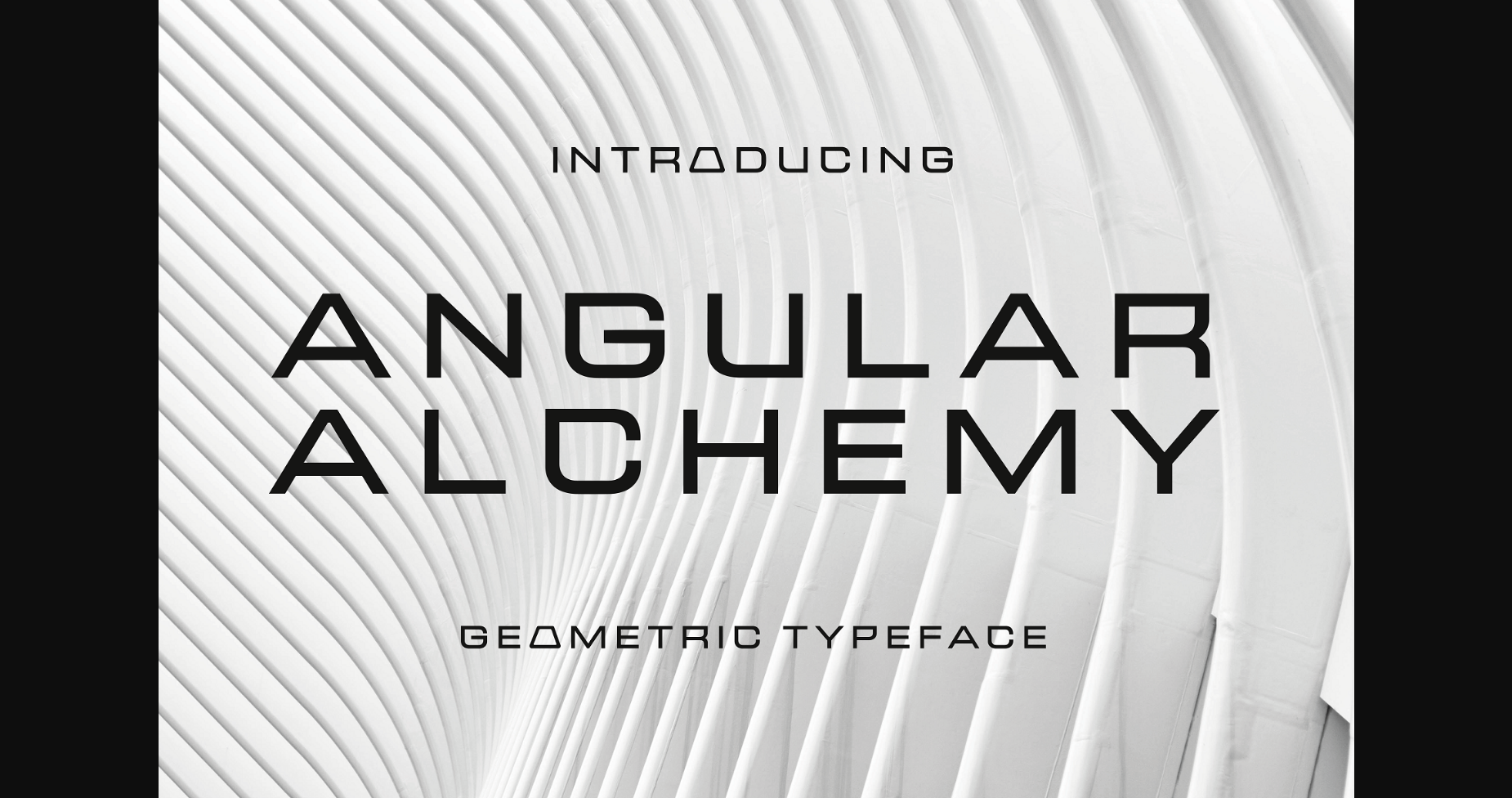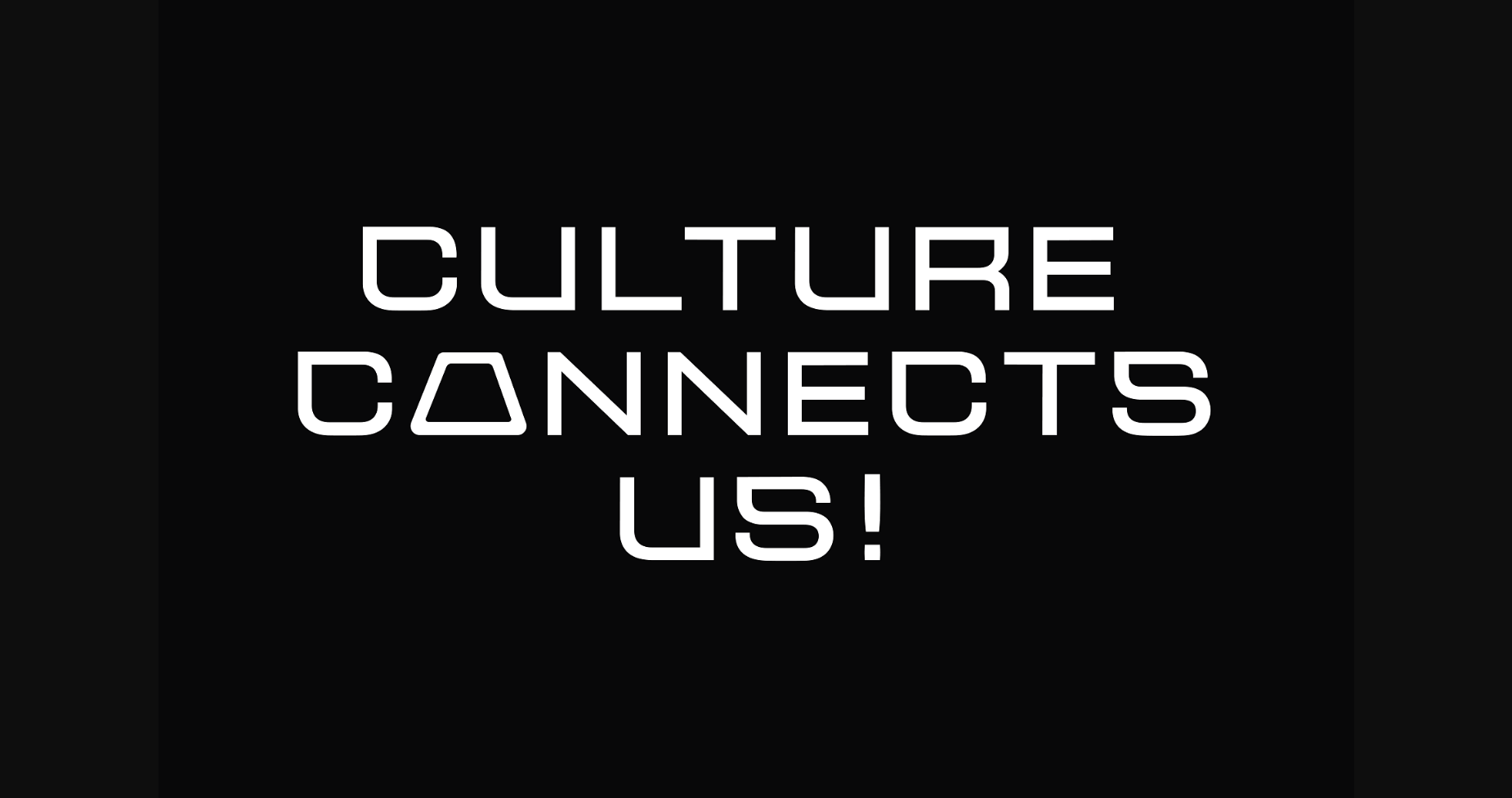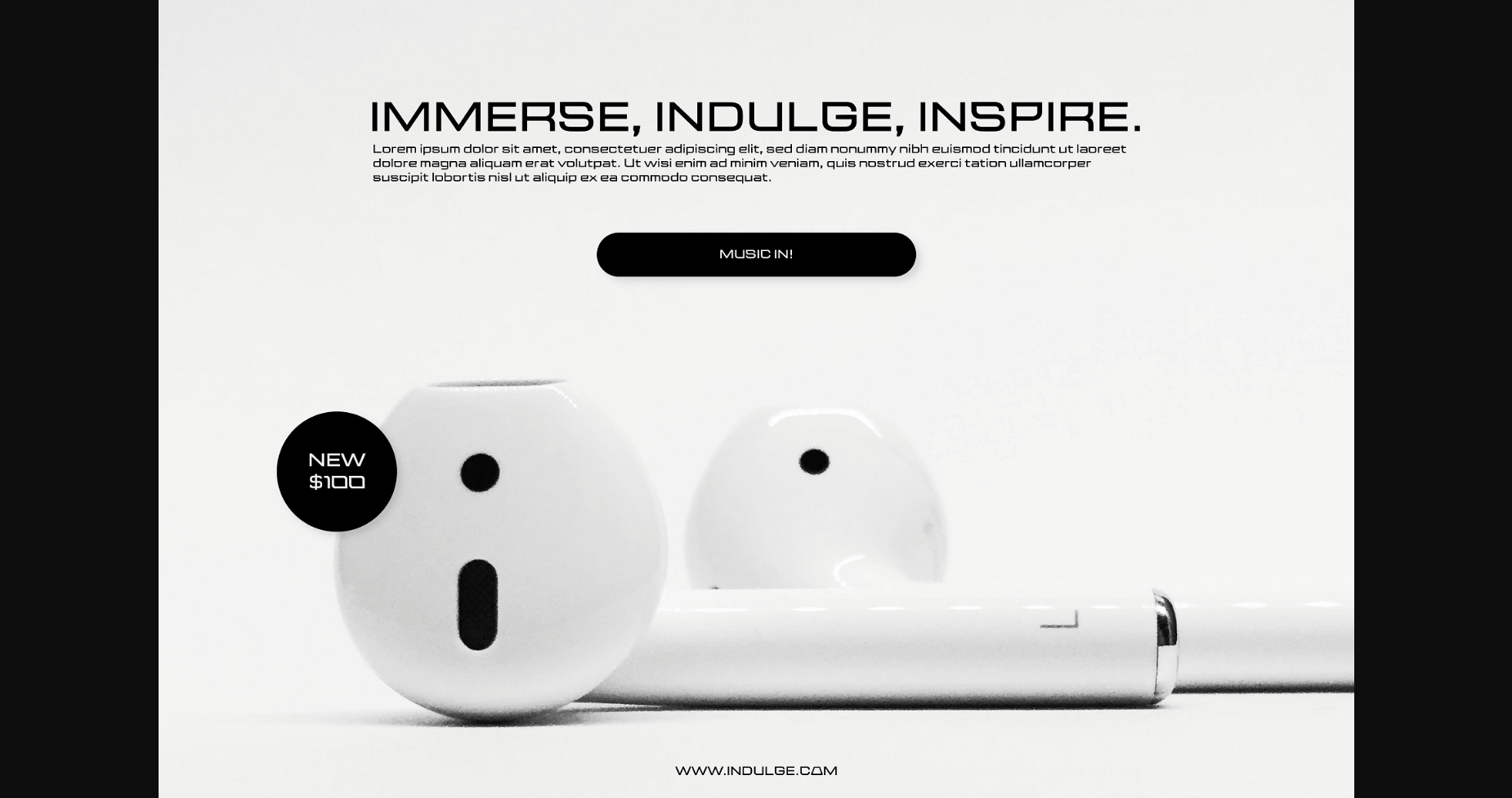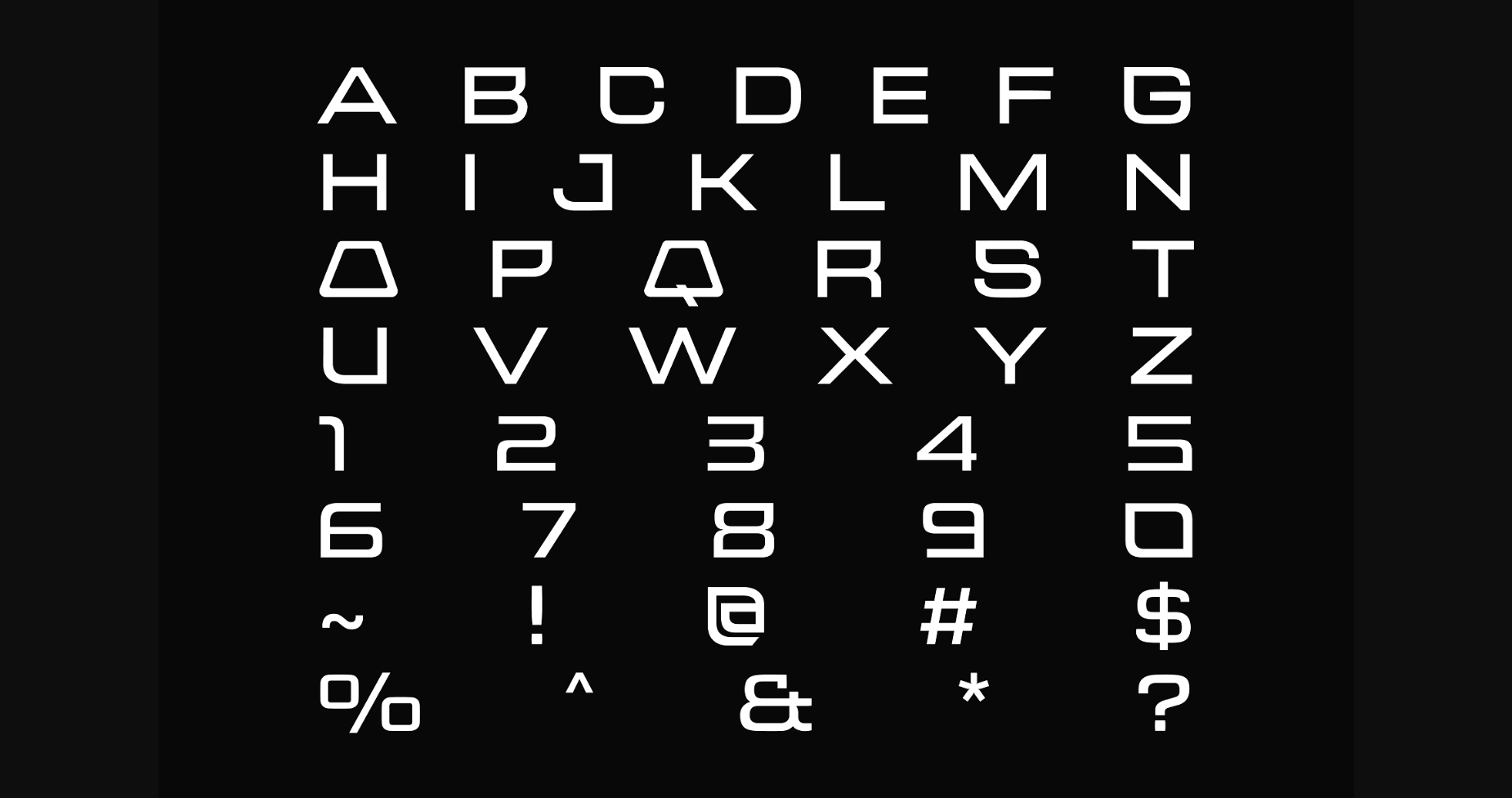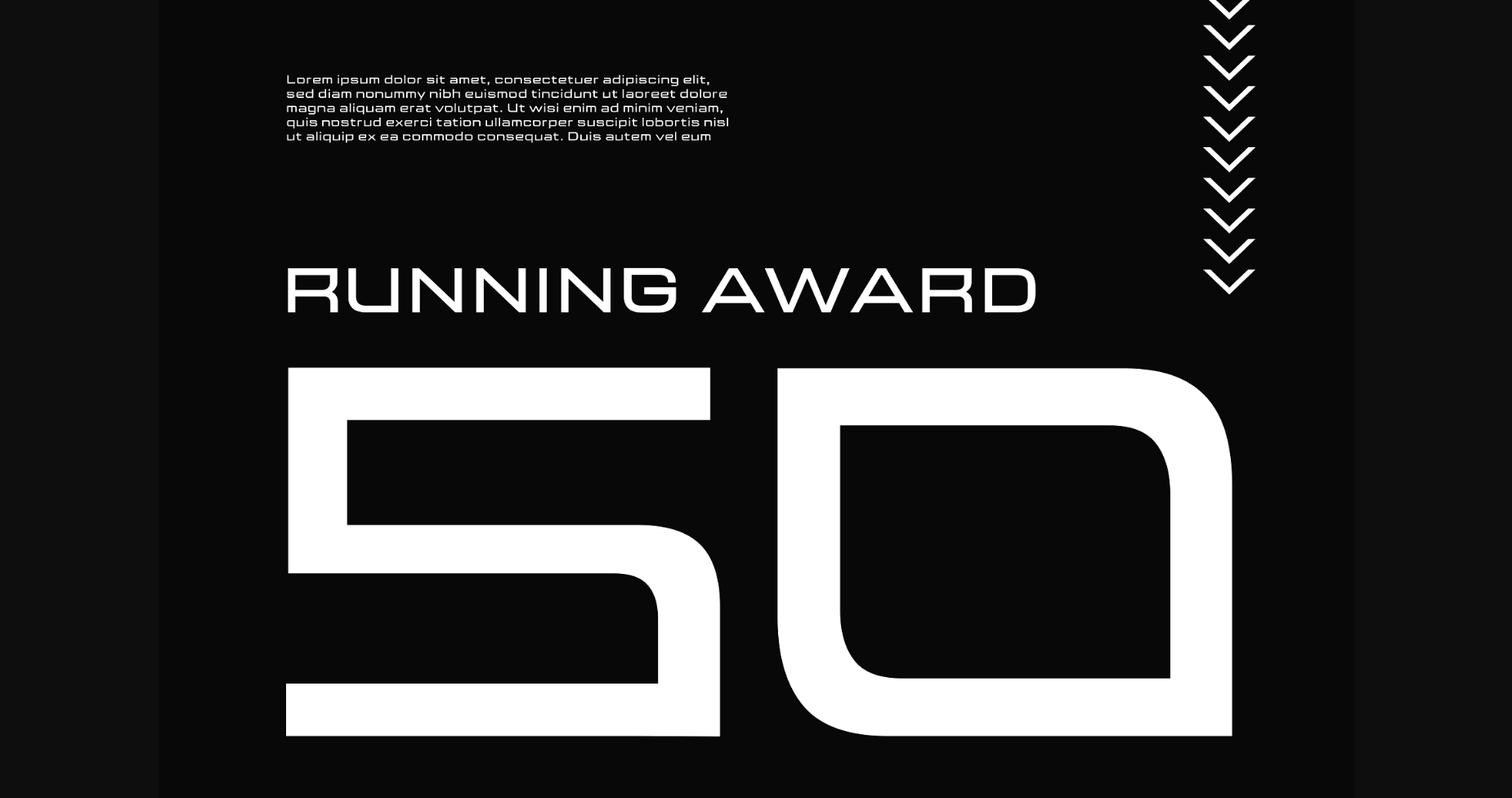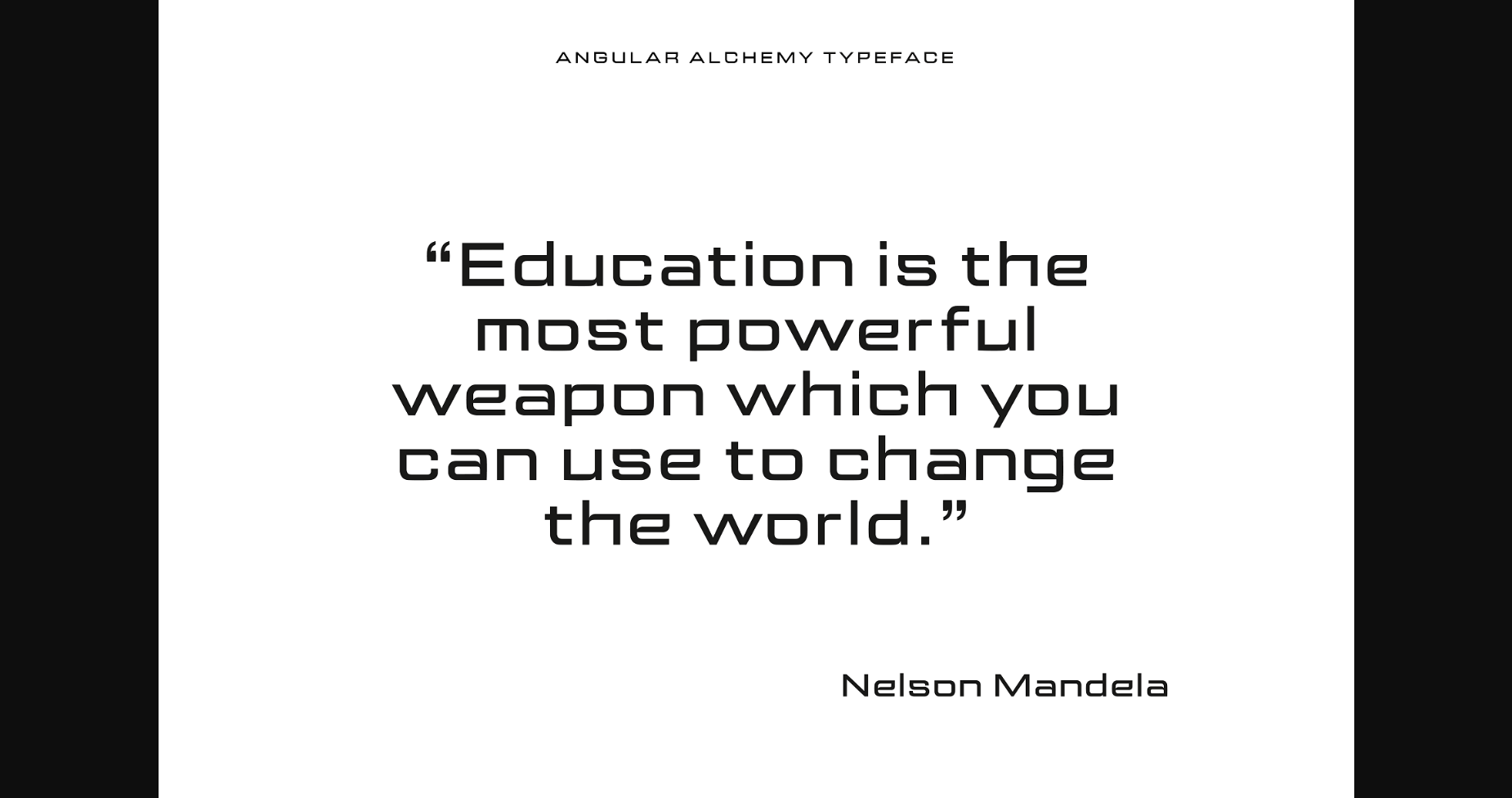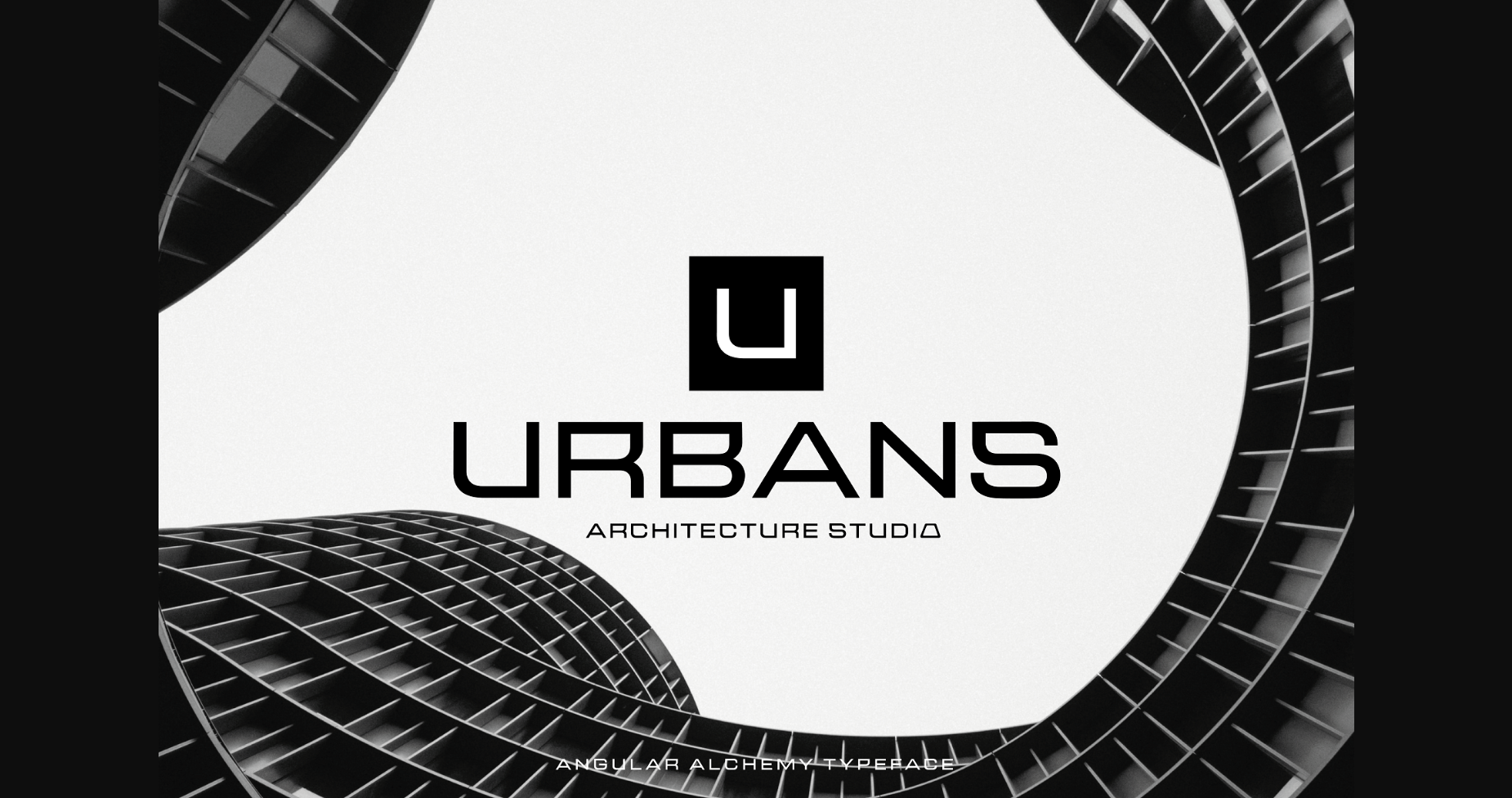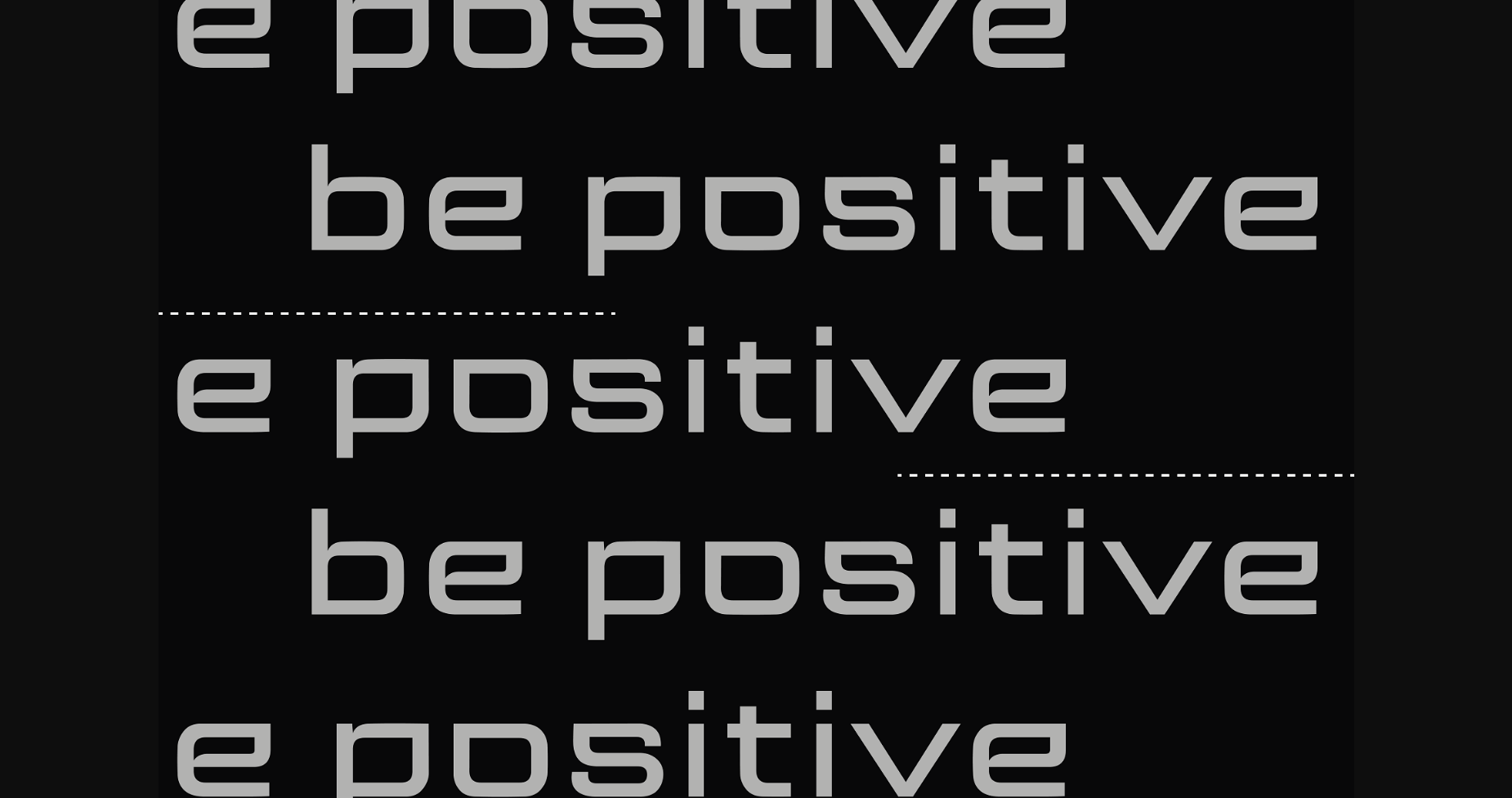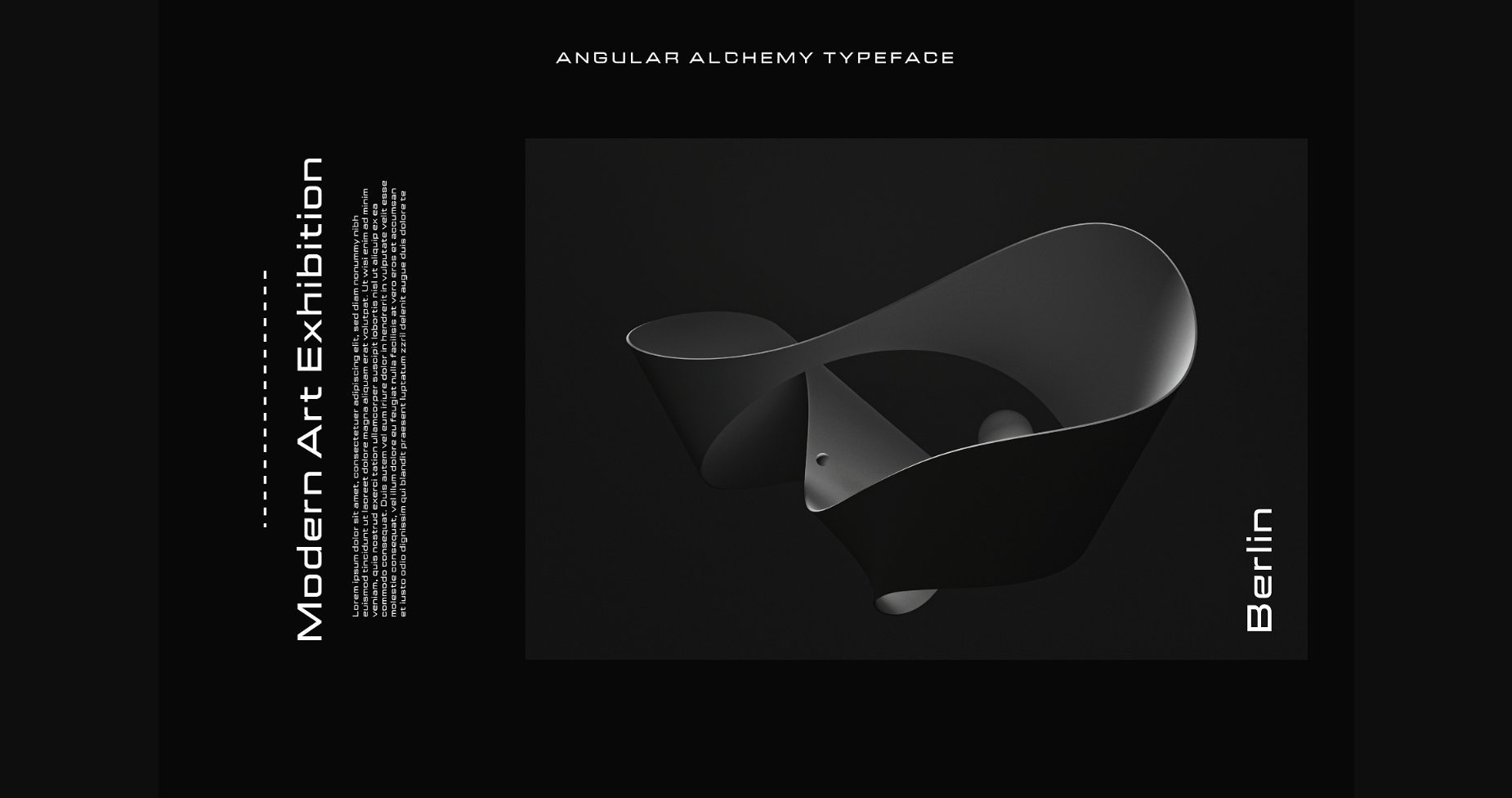
Angular Alchemy Font
About Angular Alchemy Font
Introducing Northura, the epitome of elegance and versatility in the world of typography.
This stunning modern sans typeface effortlessly combines minimalism, beauty, and legibility in perfect harmony. With an extensive range of 30 weights to choose from, Northura provides unparalleled flexibility, allowing you to tailor your designs with precision and finesse.
Its clean and sleek lines evoke a sense of contemporary sophistication, making it ideal for a wide range of projects, from editorial layouts to branding materials. Whether you’re aiming for a sleek and professional look or a stylish and artistic approach, Northura will elevate your designs to new heights, leaving a lasting impression on your audience.
Embrace the essence of modern aesthetics with Northura and let its timeless elegance redefine your typographic journey.